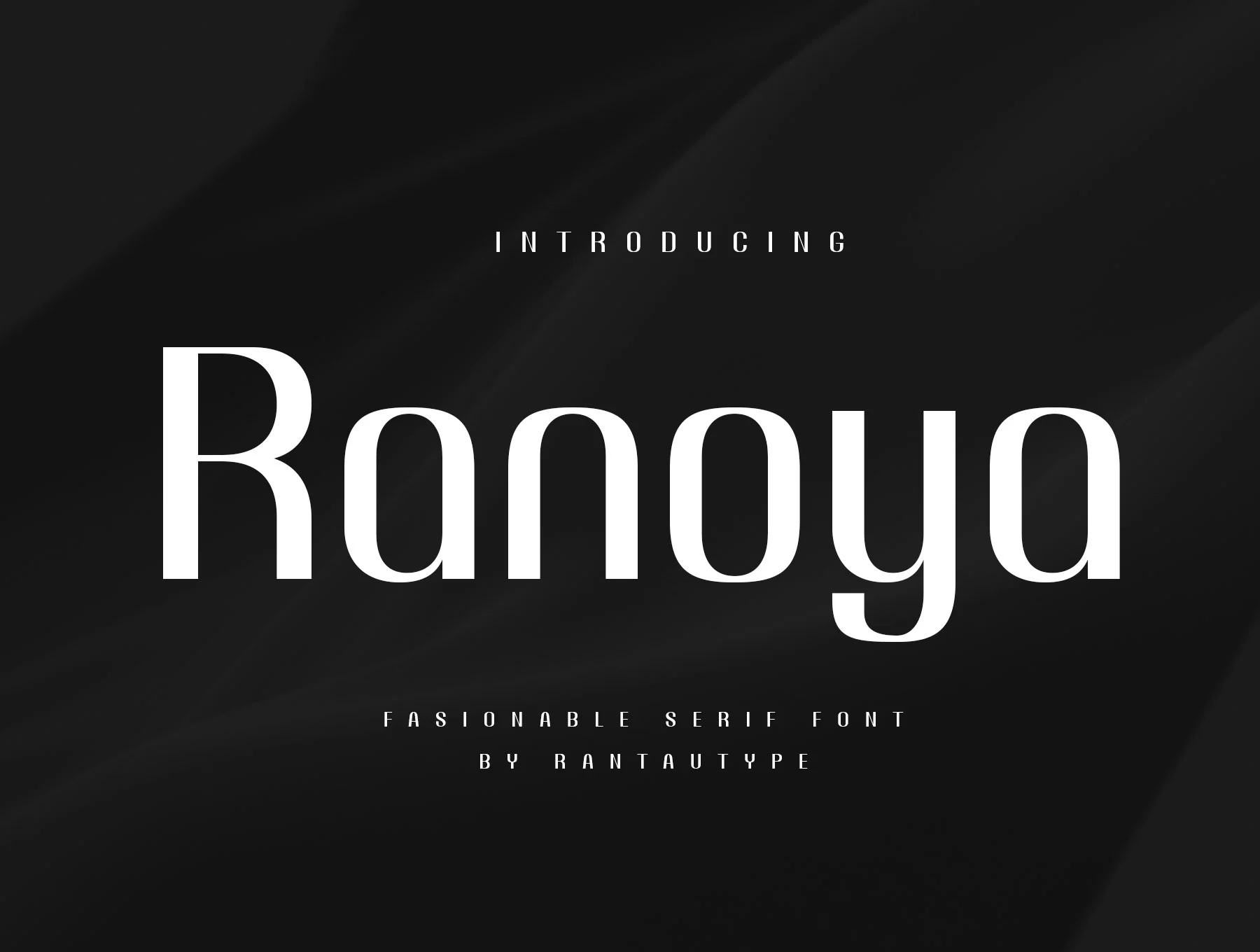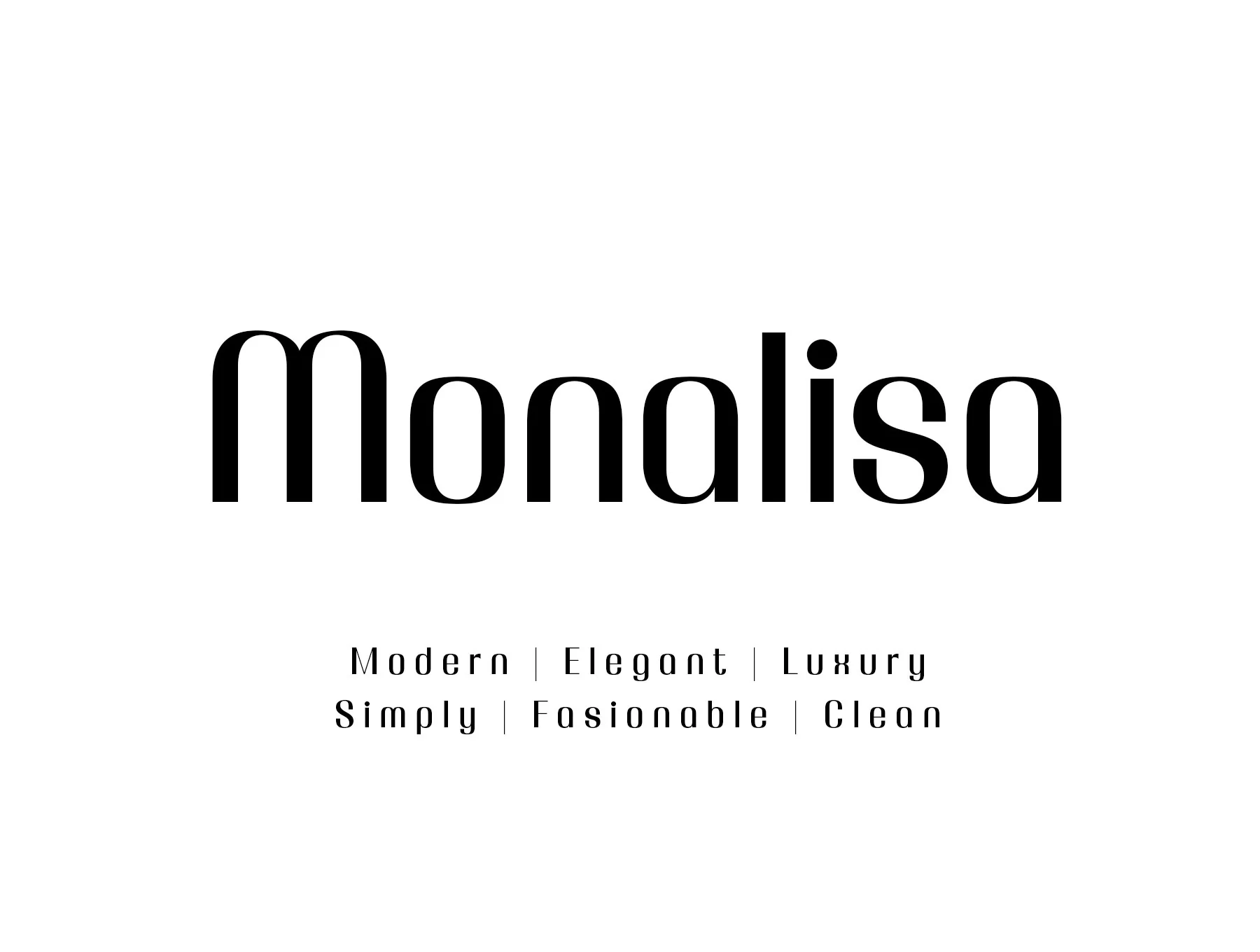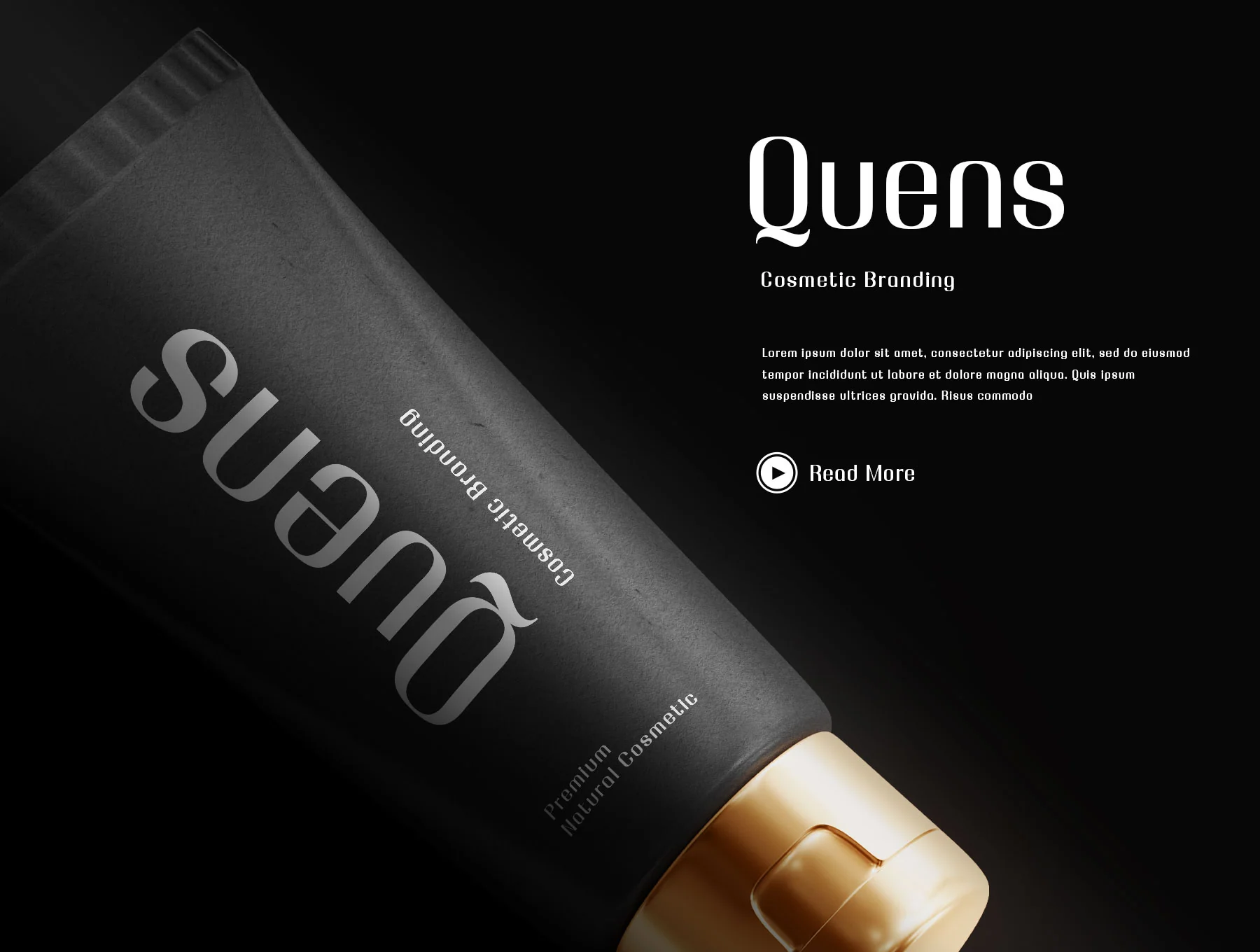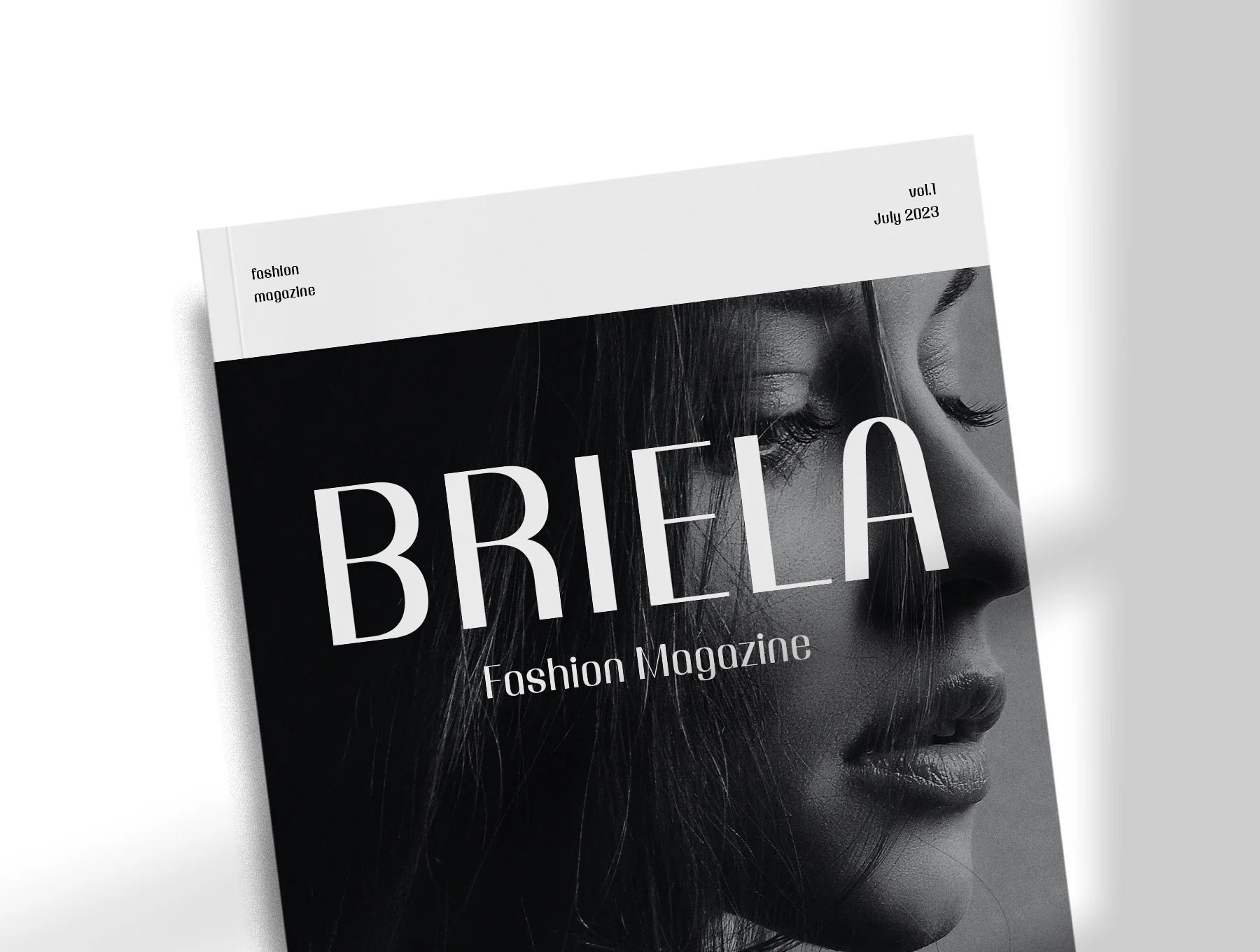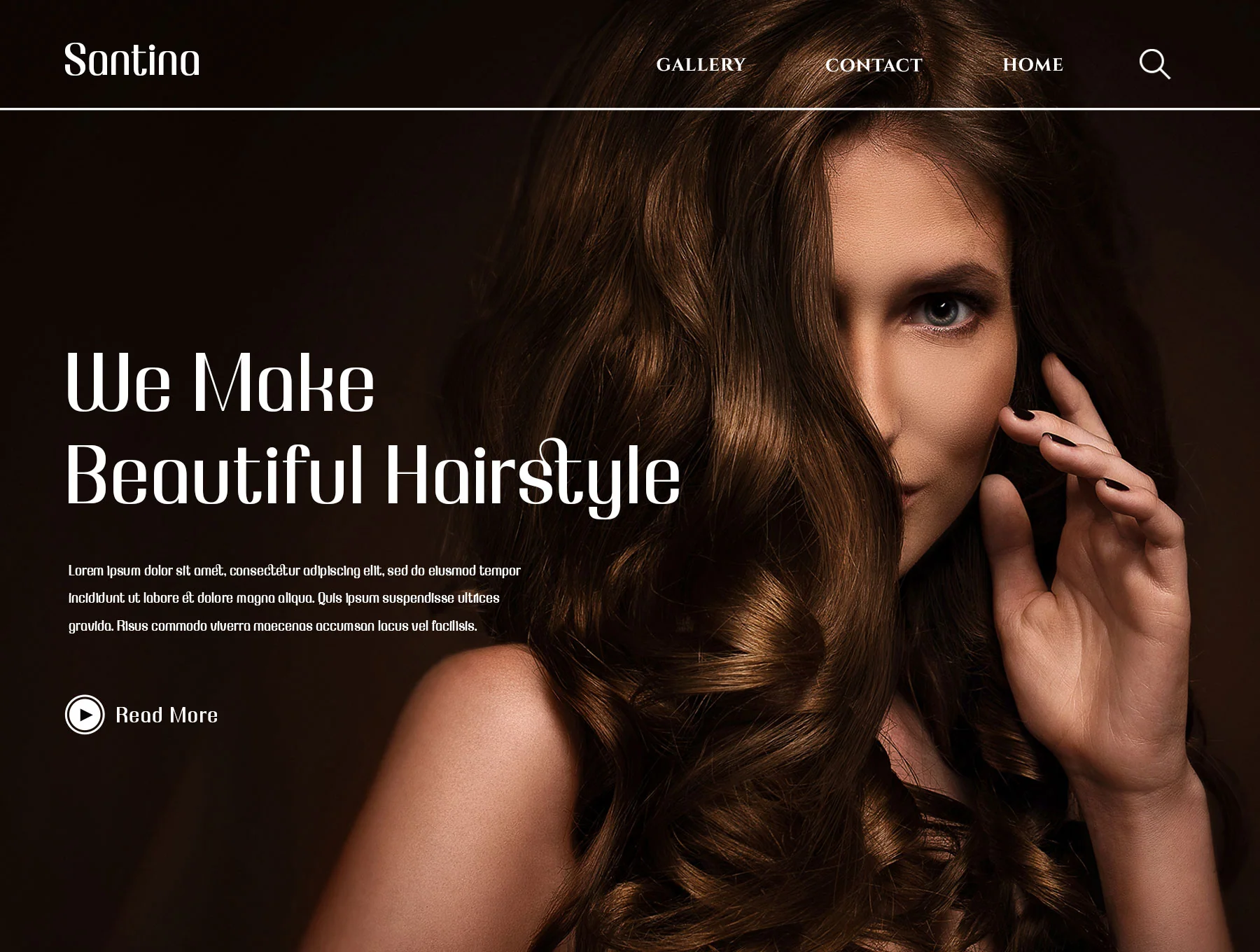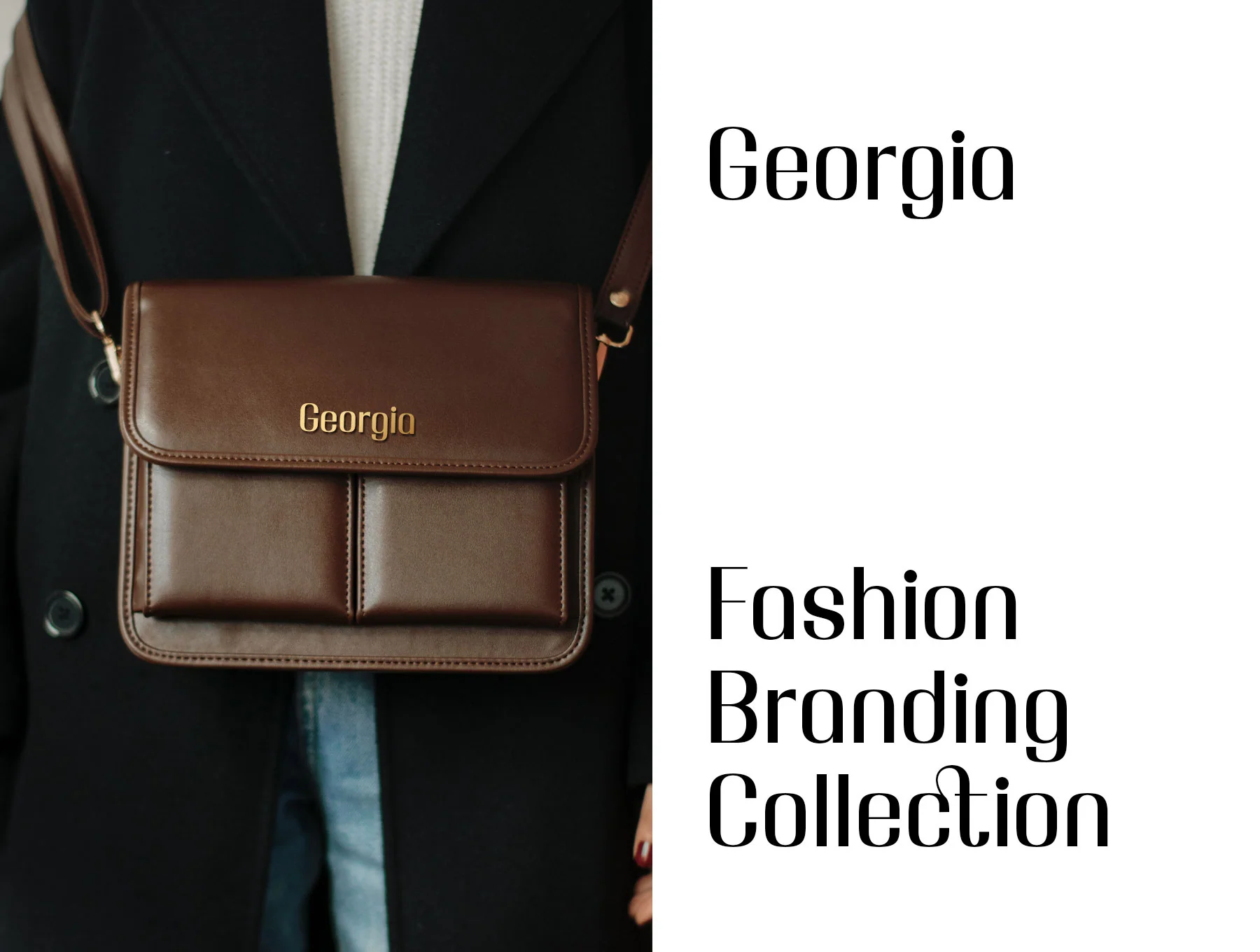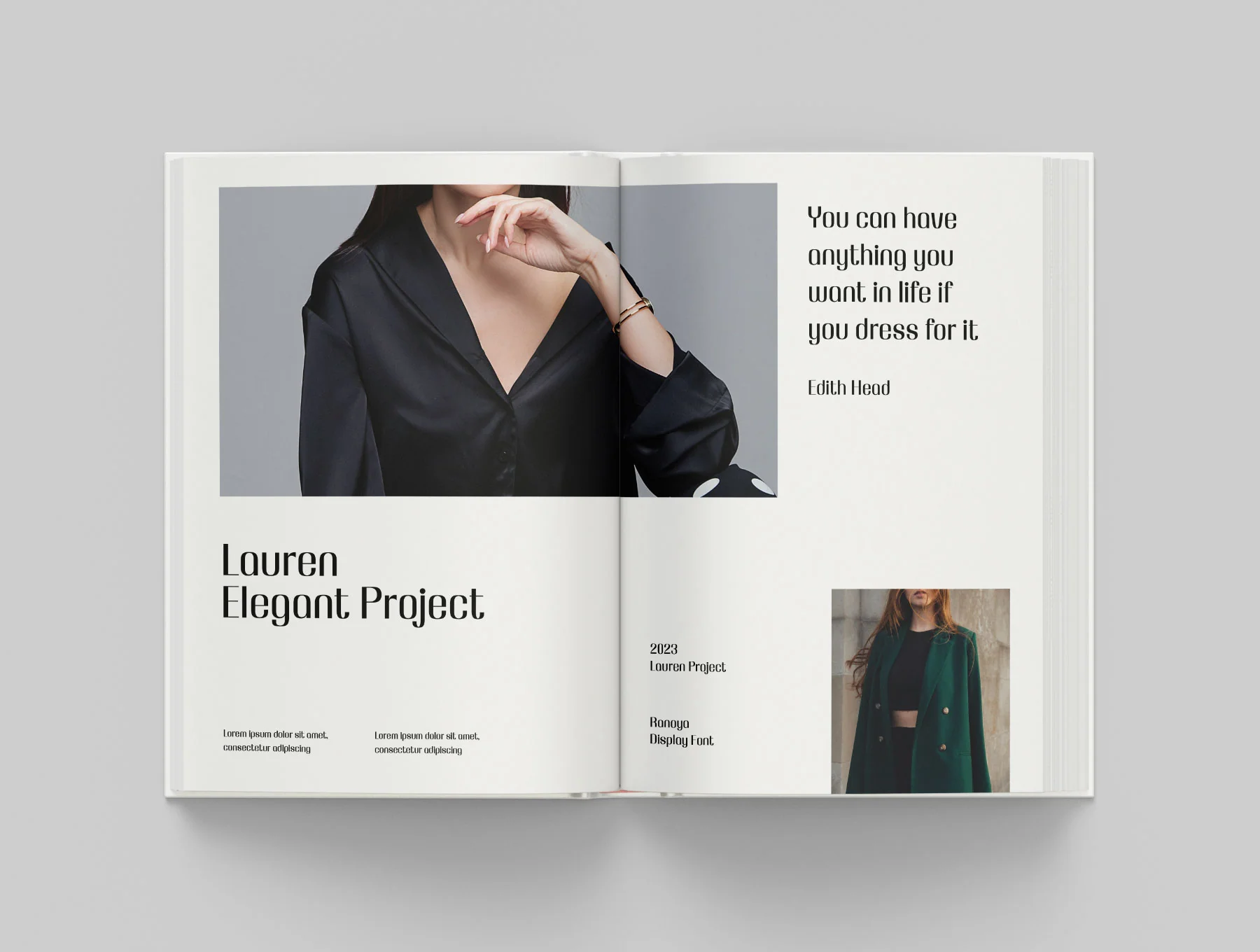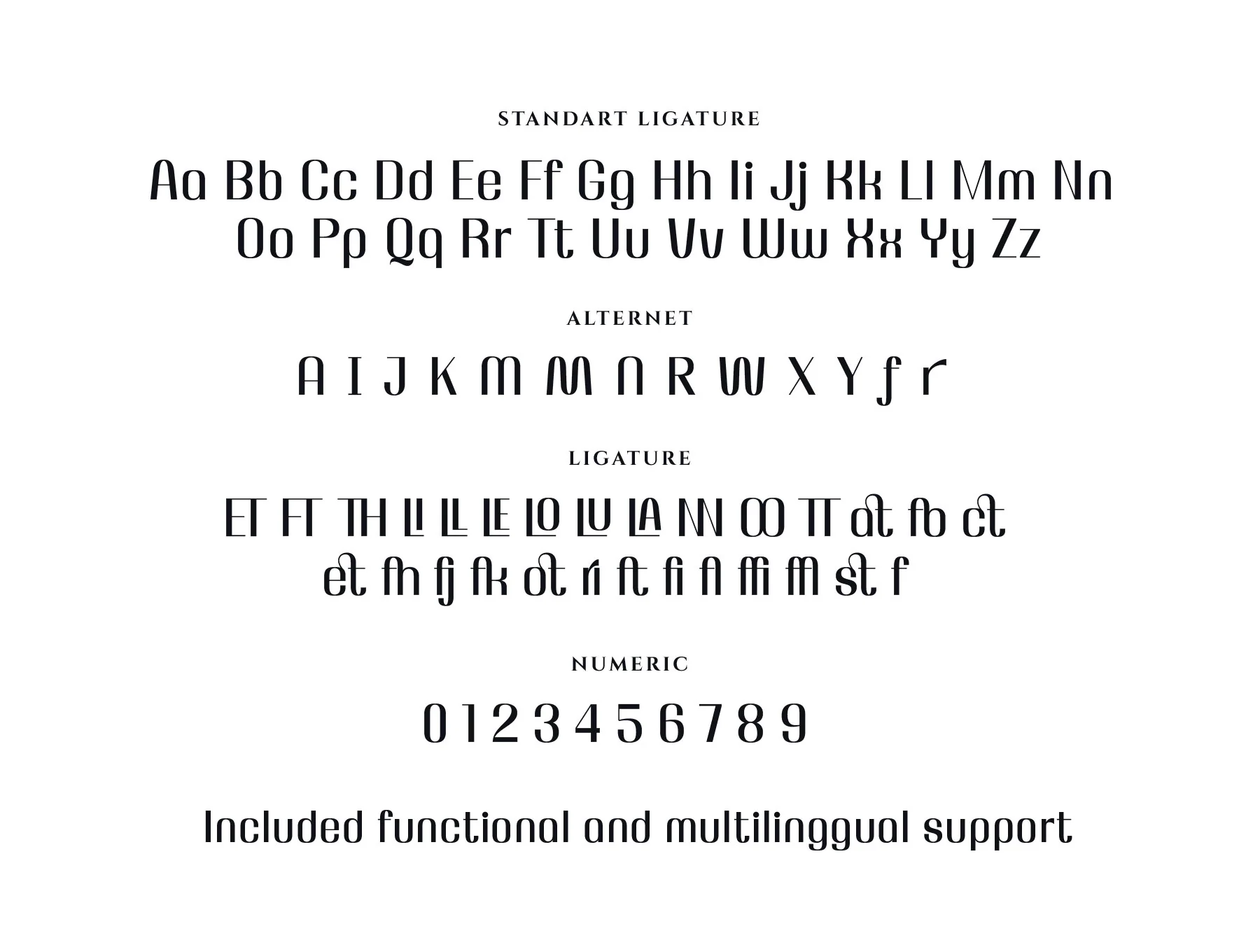
Ranoya Fasionable Serif Font
Stylish Serif Typeface
Standard uppercase and lowercase characters
Numerals and functional symbols
Alternates and ligatures
Ranoya by Rantautype is a chic display serif with refined, elegant shapes for premium modern work. Includes regular and italic styles, A–Z/a–z, numbers, punctuation, alternates, ligatures, OpenType features, and multilingual accents. Files come in OTF, TTF, and WOFF. Great for logos, titles, covers, branding, magazines, weddings, ads, corporate and business projects.